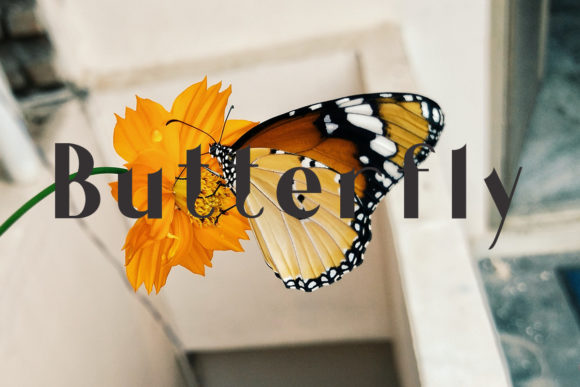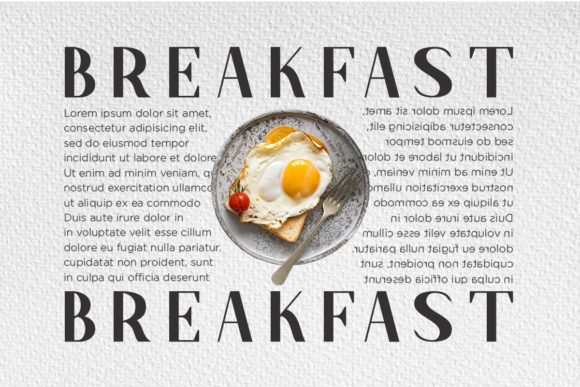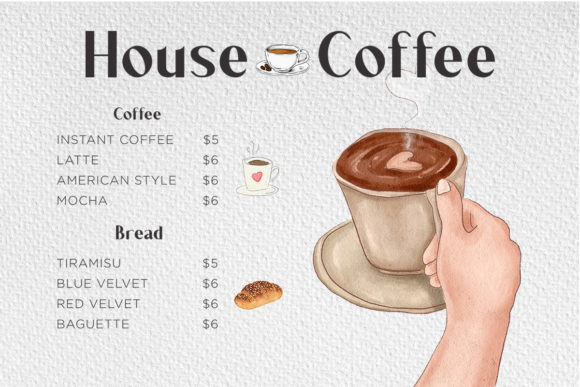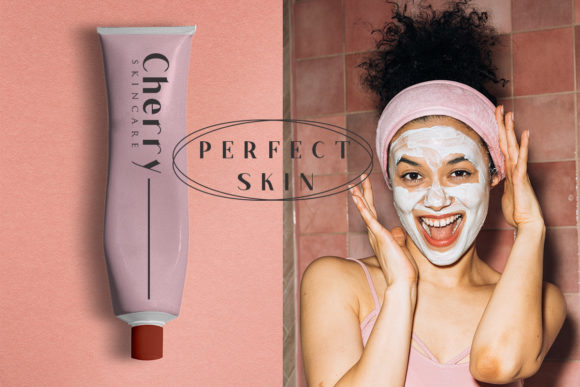
Cluth Font
Cluth is a cool and bold sans serif font. Trendy and modern, this font will easily match a wide range of creations. The only limit is your imagination.